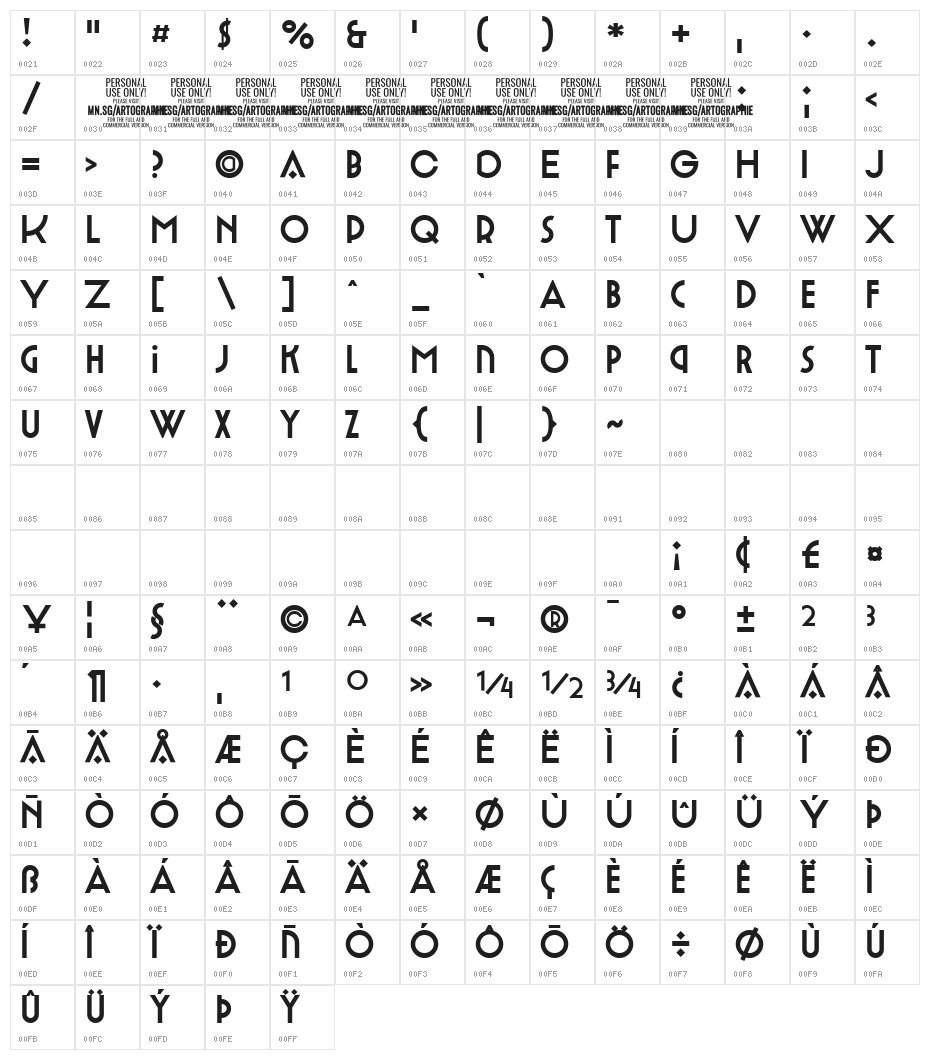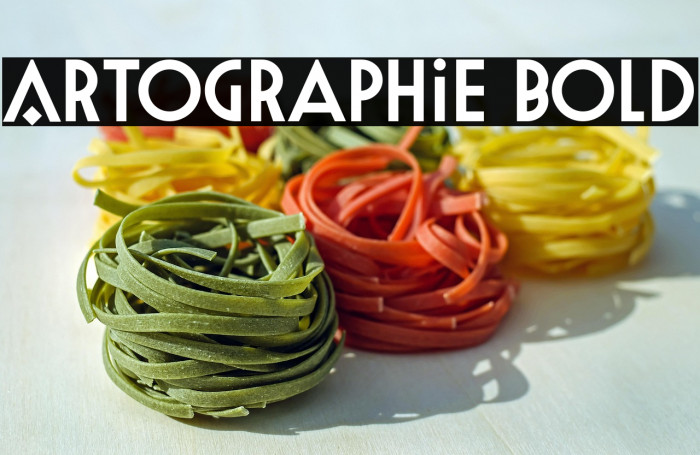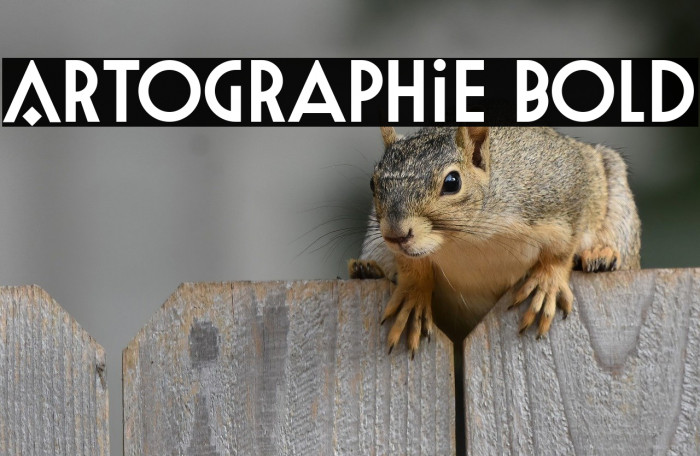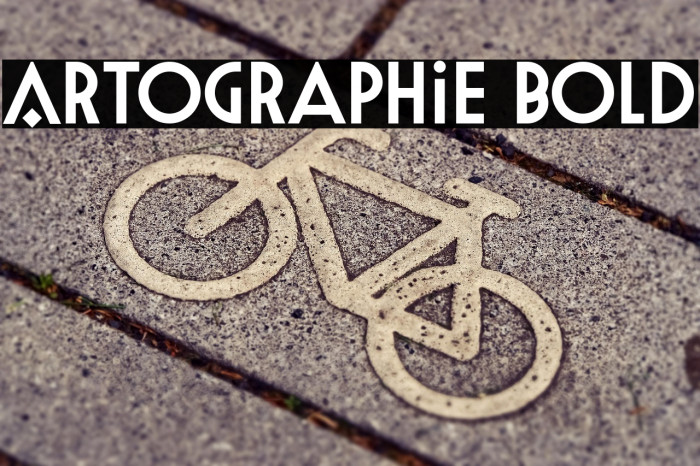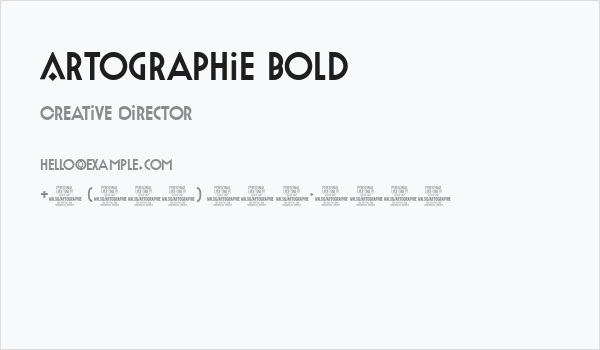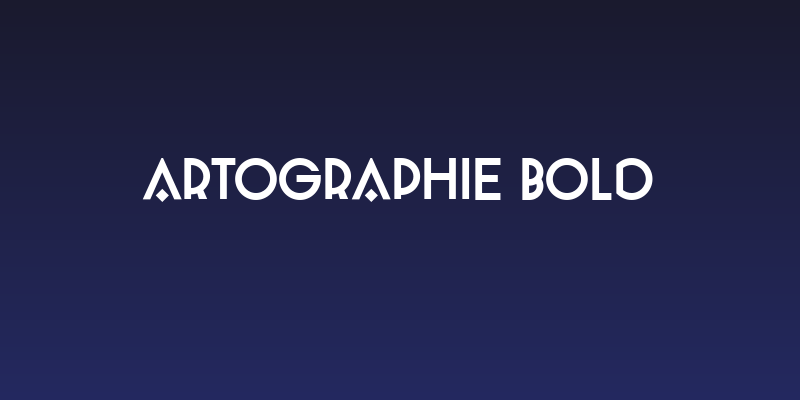
Artographie Bold Font
Artographie Bold Description
This font features a bold and striking design with geometric elements that create a modern and artistic appearance. The uppercase letters are characterized by sharp angles and clean lines, giving them a futuristic feel. The lowercase letters maintain a consistent style, complementing the uppercase with a slightly softer edge. The numerals and special characters are designed to match the overall aesthetic, ensuring a cohesive look across all text. This font's unique style makes it suitable for creative projects that require a distinctive and eye-catching typeface.
| Proposed Projects | Ideal for branding, posters, album covers, and other creative projects that require a bold statement. |